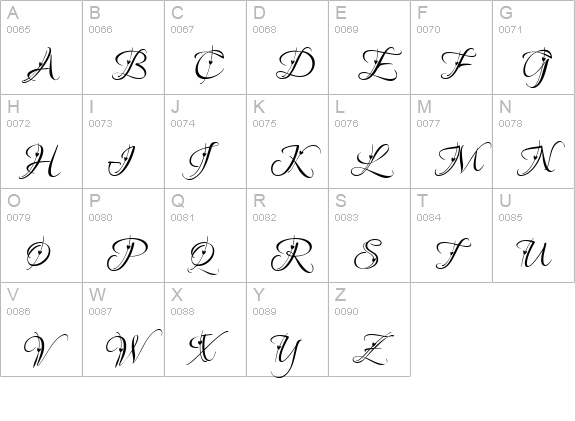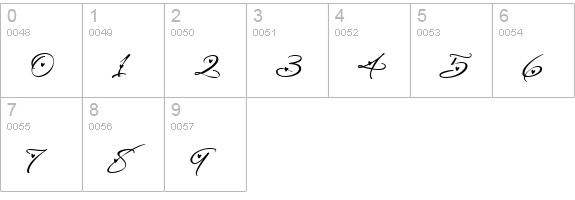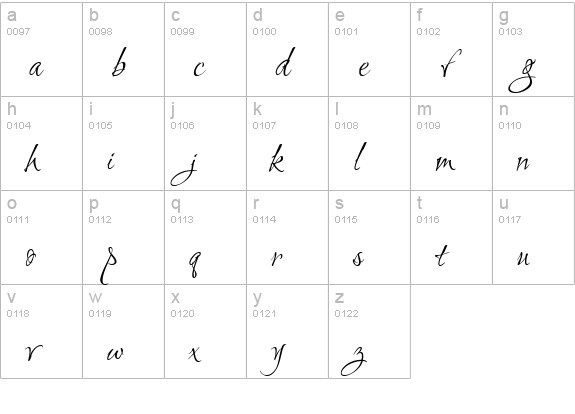
Love Light is a refined, elegant variant in the Love typeface family \xE2\x80\x94 well suited to elegant body text, refined sub-headings, and luxury branding.
Love Light font is a stunning and elegant typeface designed for those who seek to add a touch of romance and sophistication to their projects. With its delicate and graceful letterforms, Love Light is perfect for creating invitations, greeting cards, quotes, and more. This font exudes a sense of warmth and tenderness, making it ideal for expressing heartfelt messages. What makes Love Light font even more appealing is that it is available for free download at FontsMarket.com. This means that you can easily access this beautiful typeface and use it in your designs without any cost. Whether you are a designer, a blogger, or anyone looking to add a touch of love to your creations, Love Light font is the perfect choice. Download it now and let your words shine with love and light.